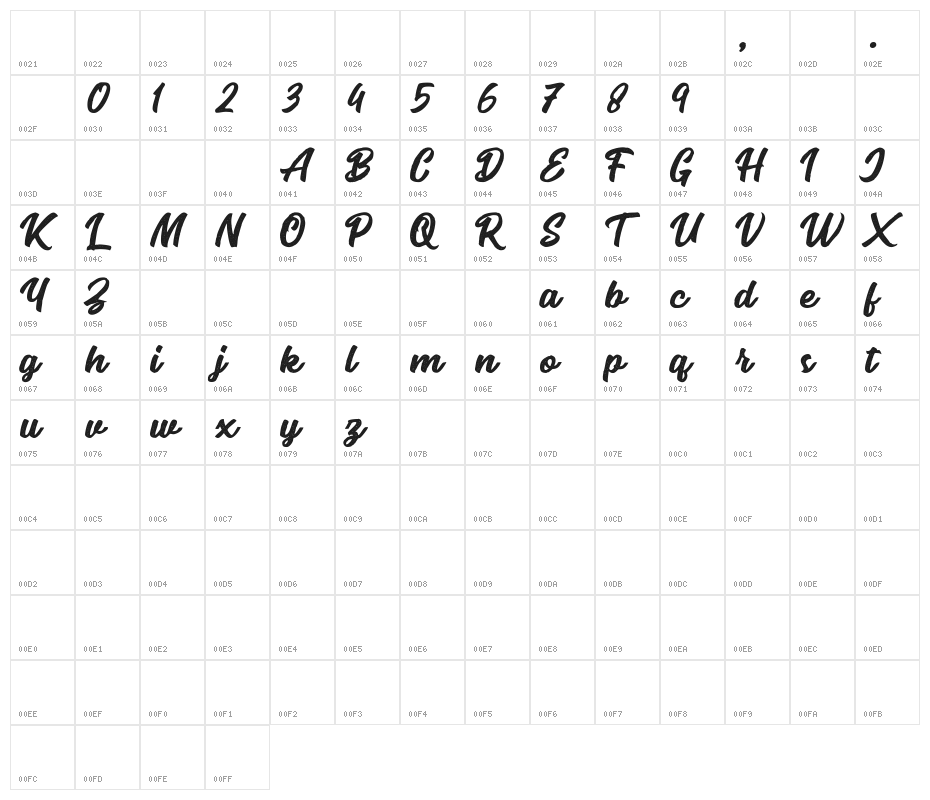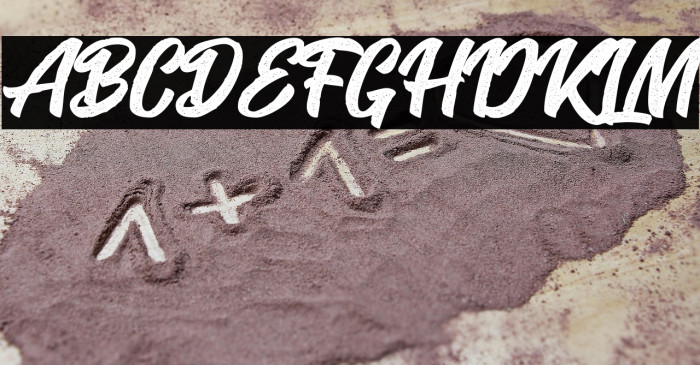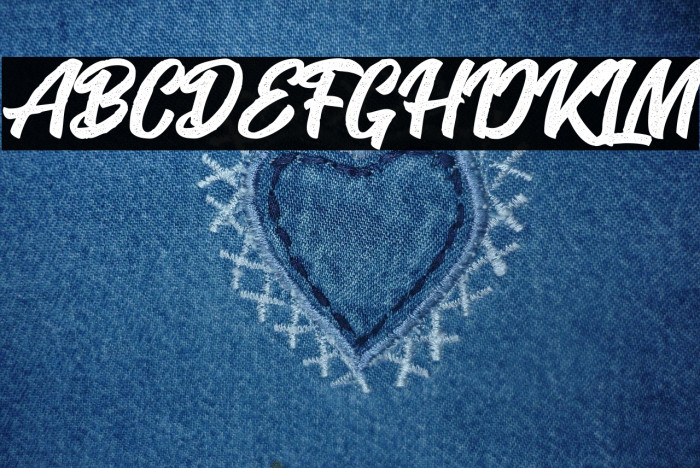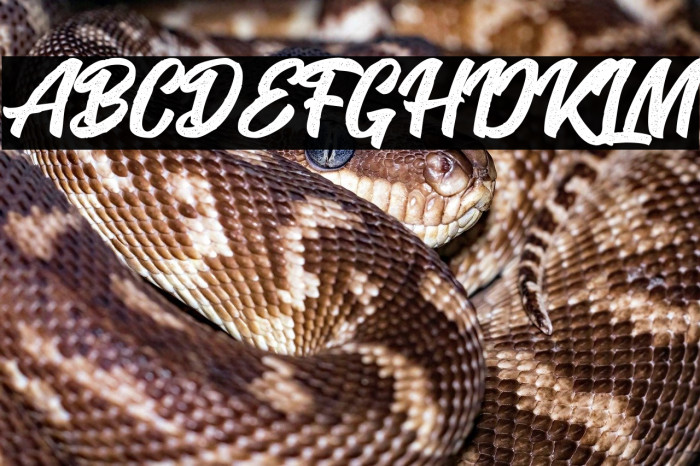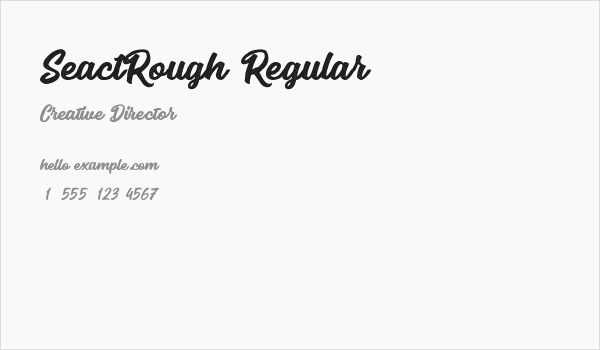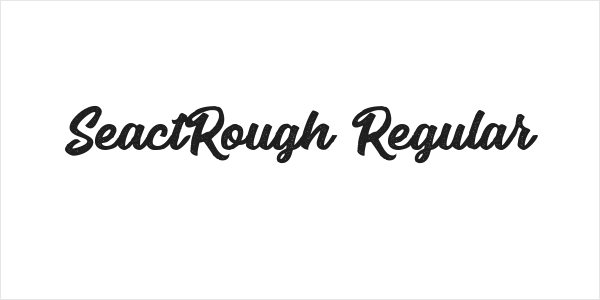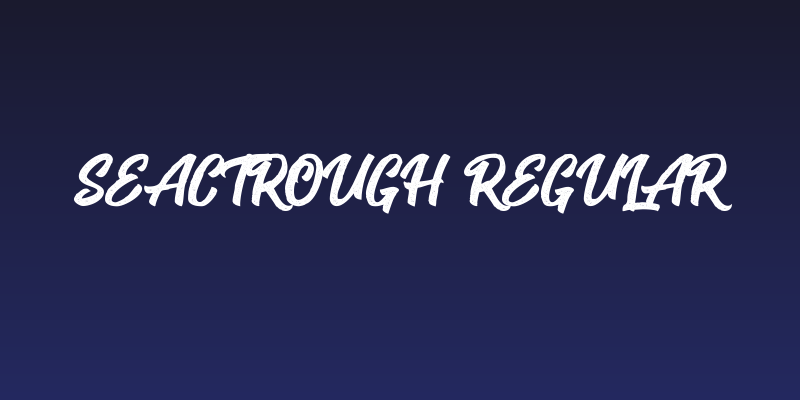
SeactRough-Regular Font
SeactRough-Regular Description
This font features a bold, textured script style that mimics the look of hand-painted lettering. Each character has a rough, distressed appearance, giving it a vintage and rugged feel. The strokes are thick and consistent, with a slight slant that adds a dynamic and energetic quality. The uppercase letters are bold and prominent, while the lowercase letters maintain a cohesive flow, making it suitable for creating eye-catching headlines or logos. The numbers and special characters are equally bold, ensuring uniformity across all text elements.
Overall StyleVintage
Proposed ProjectsIdeal for branding, logos, posters, and any design requiring a bold, vintage aesthetic.